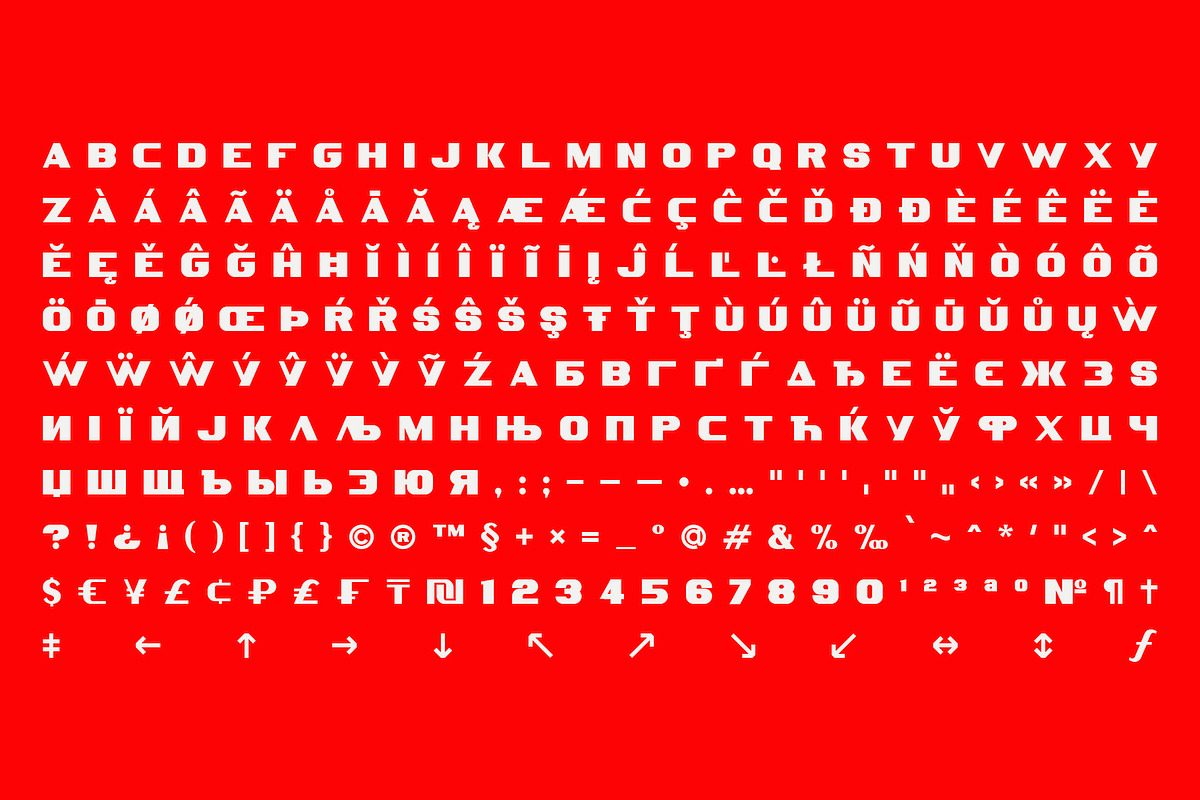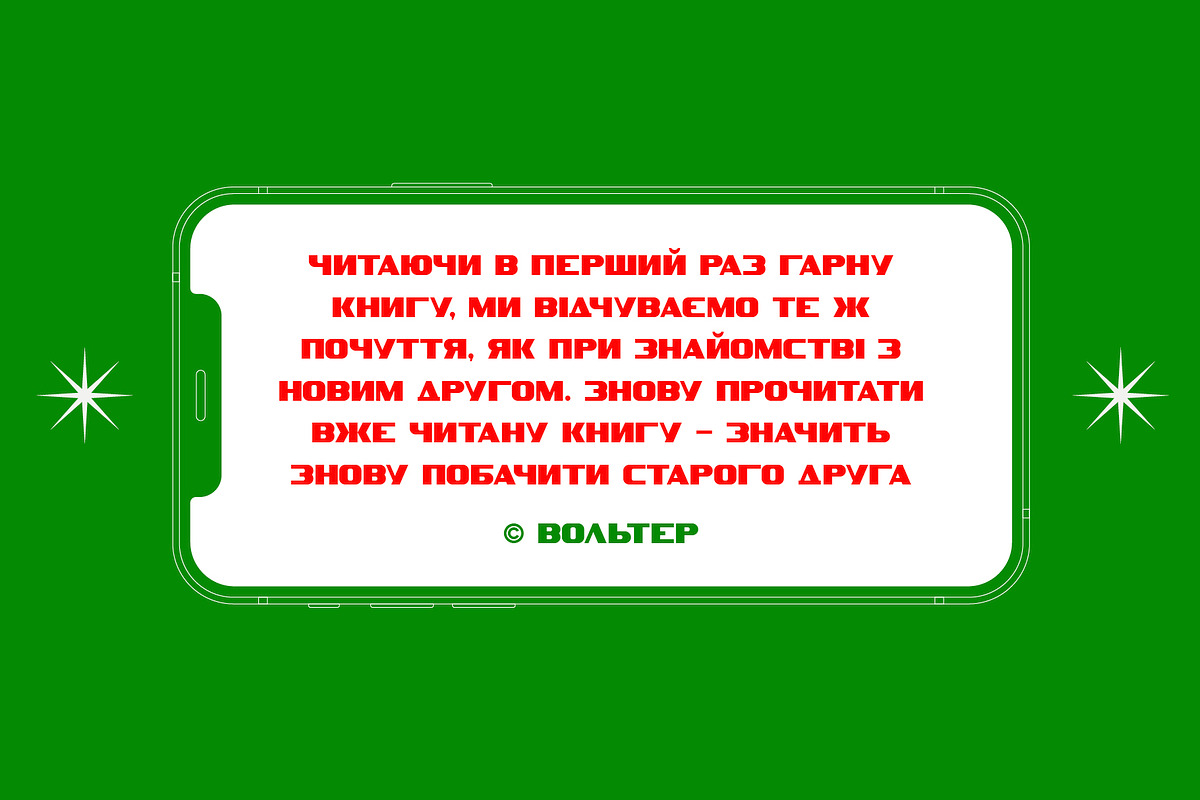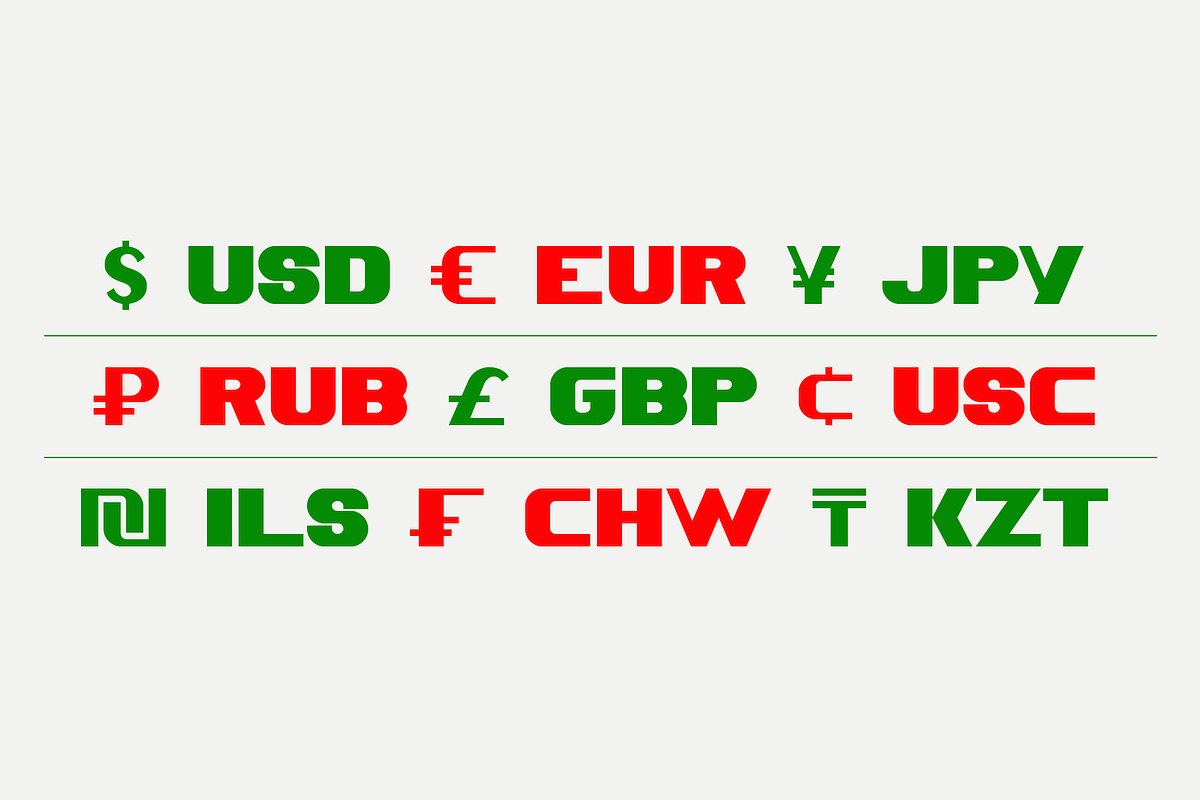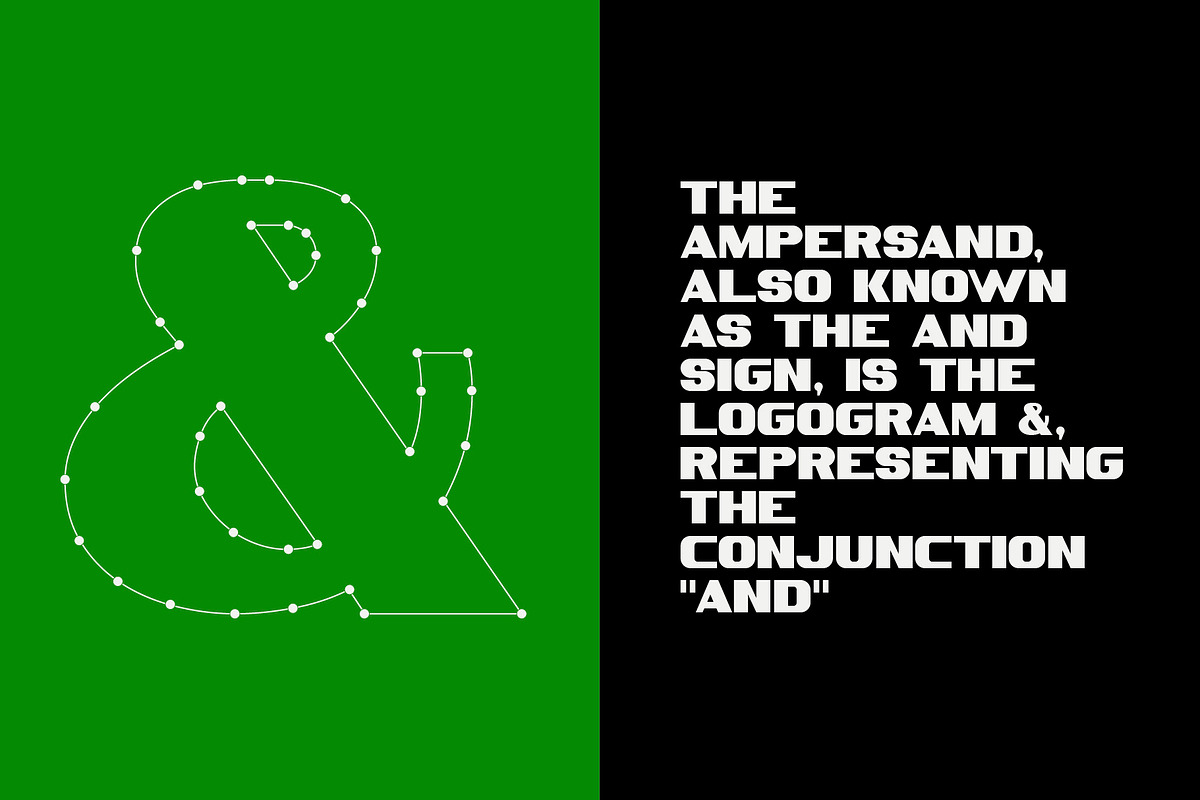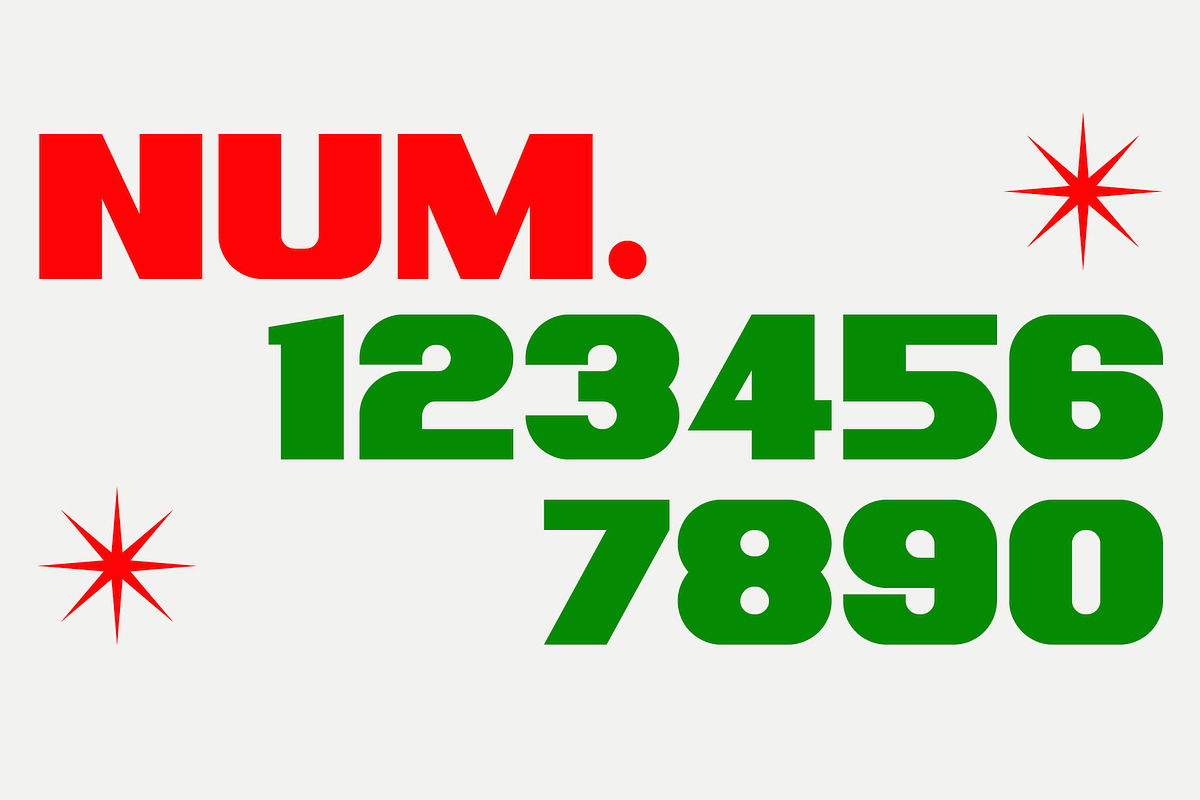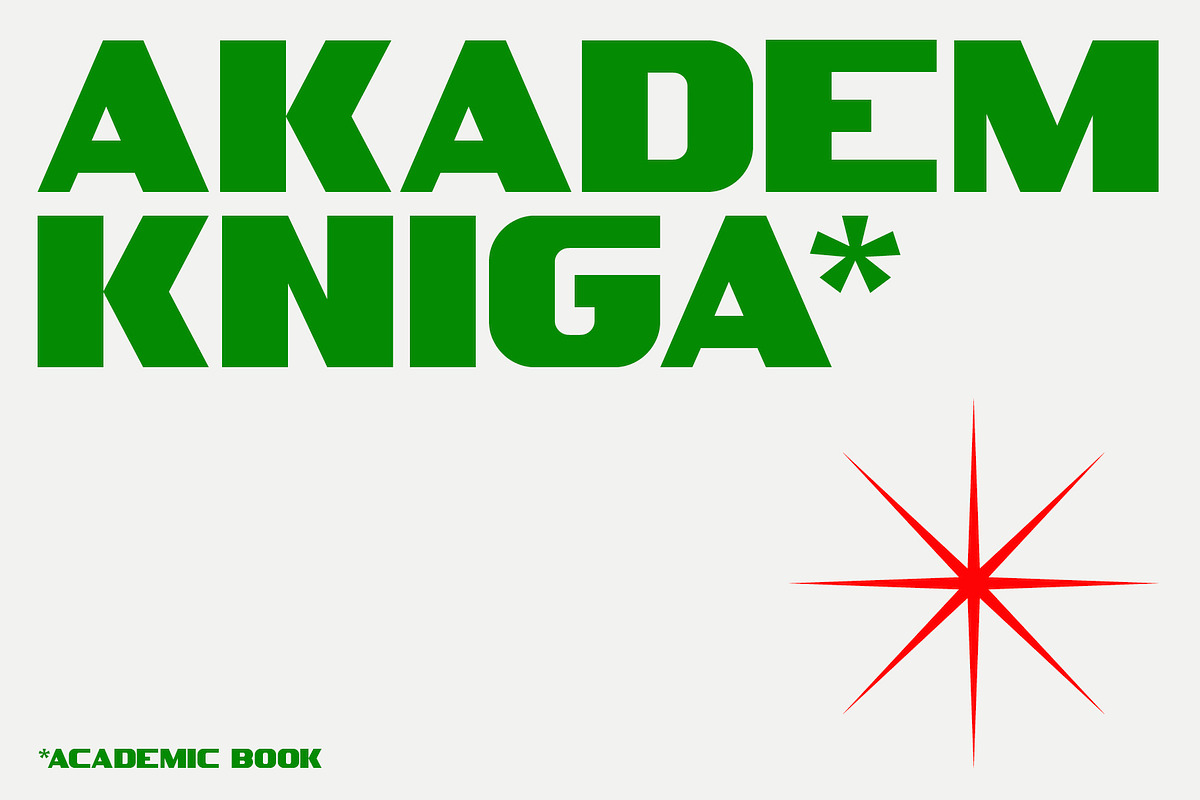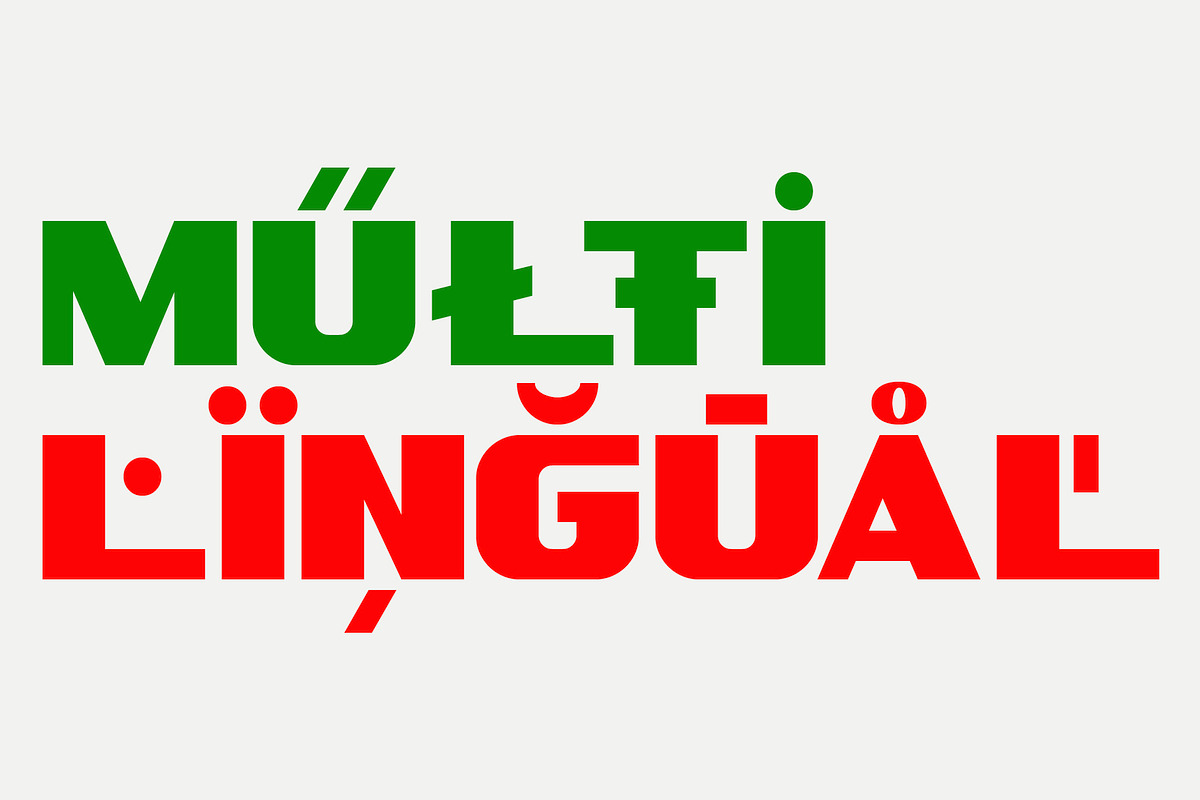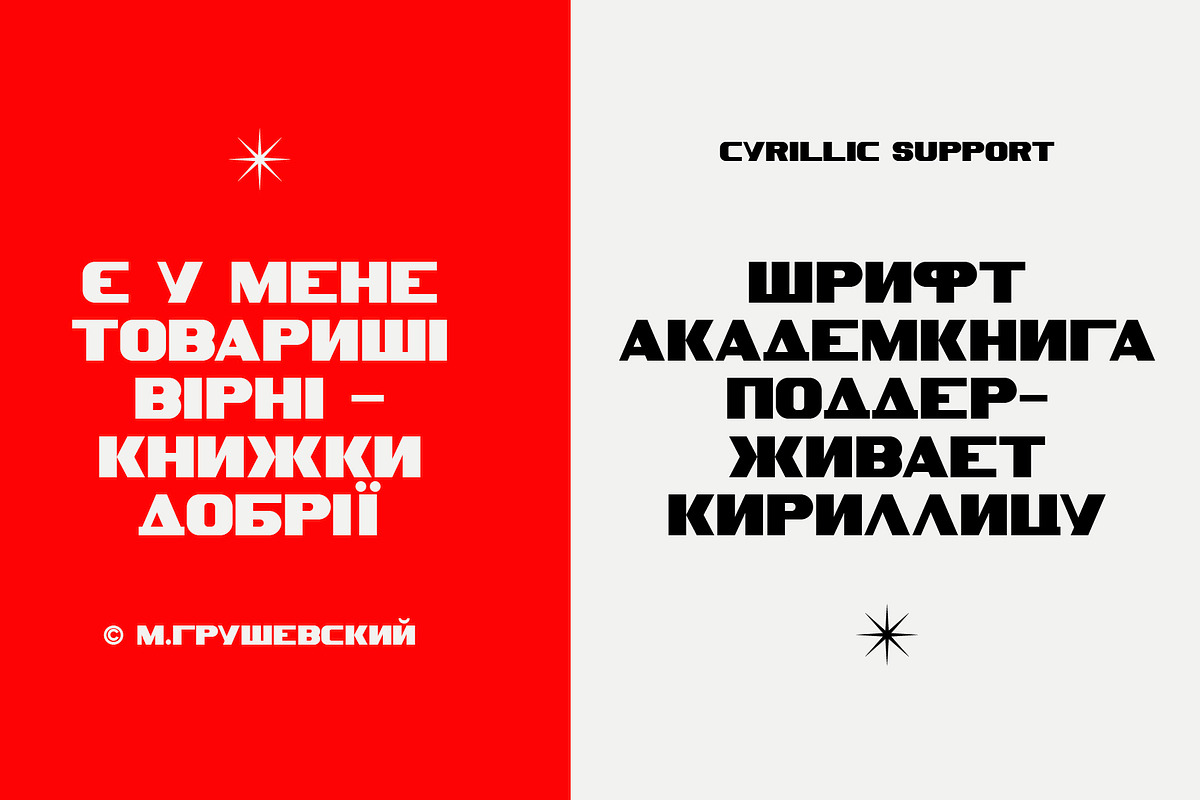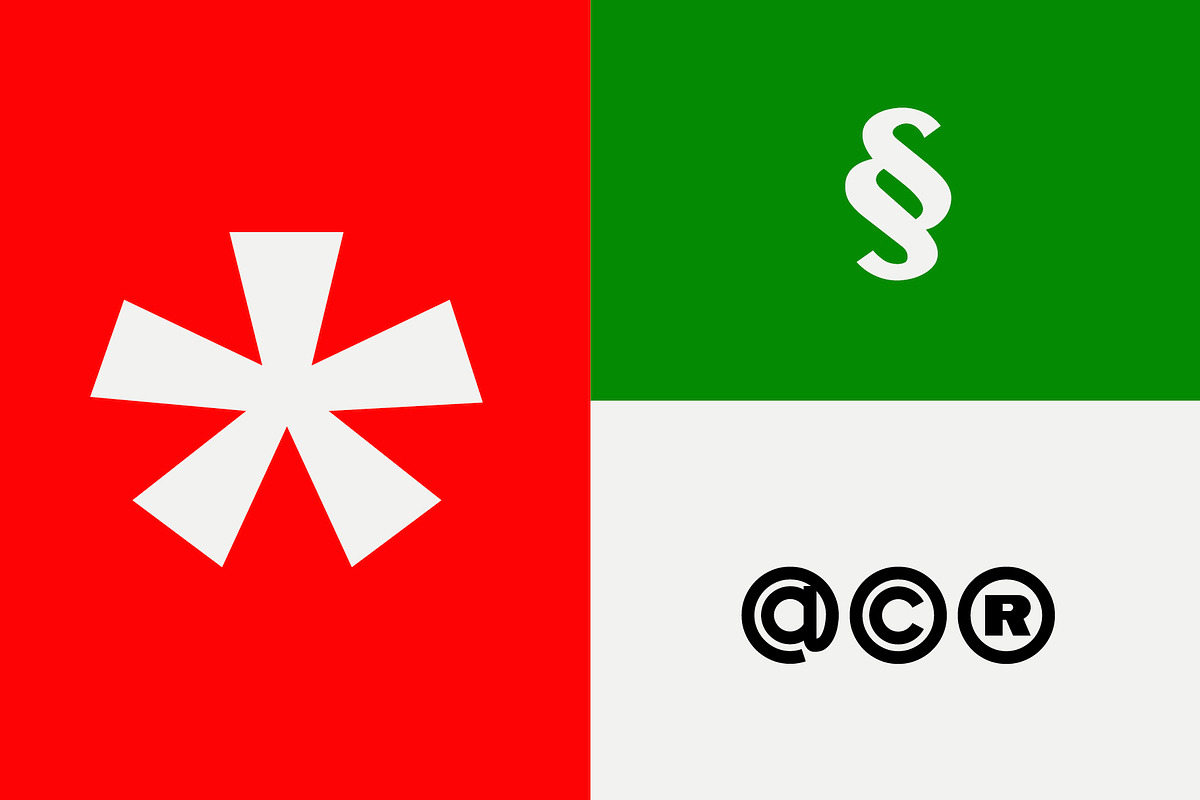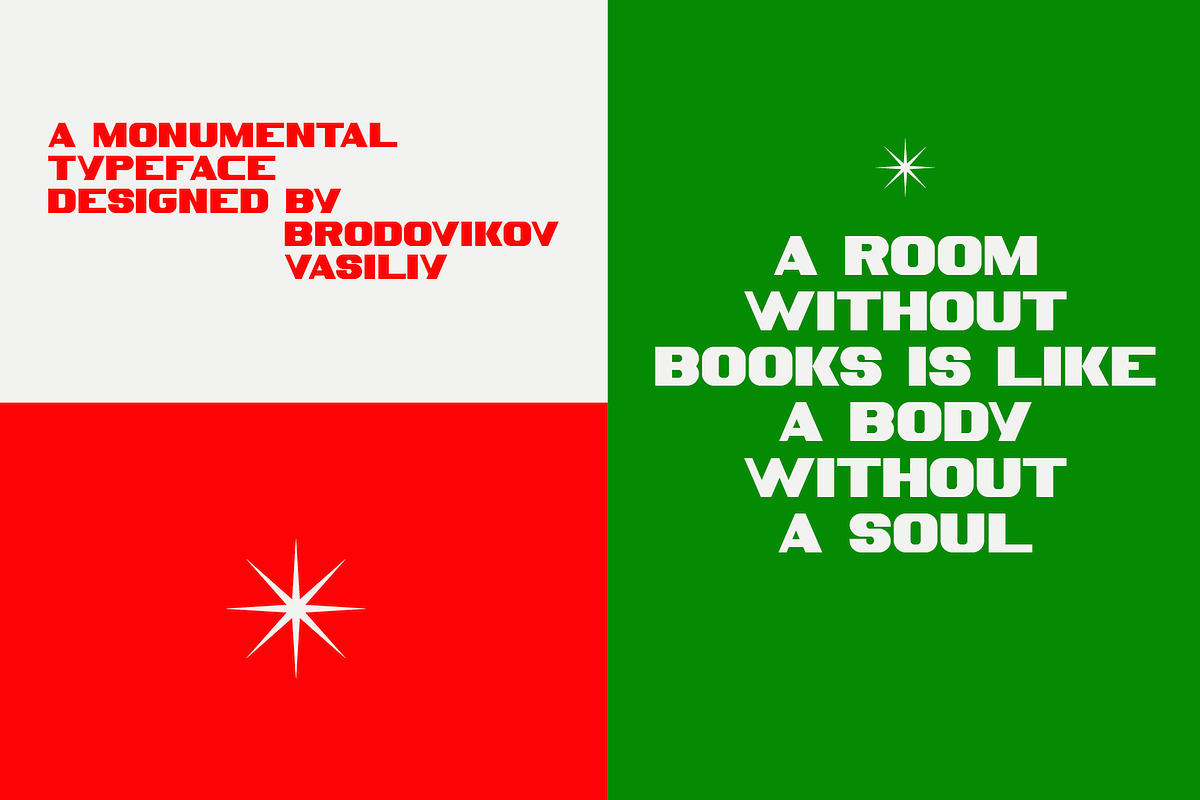
SK Akademkniga — Monumental Grotesk
SK Akademkniga is a monumental classic sans serif with medium contrast. Its strict form emphasizes the uniqueness of each symbol. The typeface supports many languages, including Cyrillic and extended Latin. SK Akademkniga is great for poster design, titles and texts. It also has a versatile geometry, which makes it a great help in work, whether it is graphic design or web design.